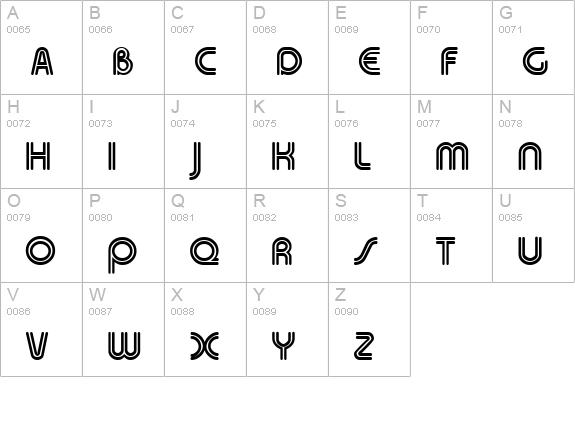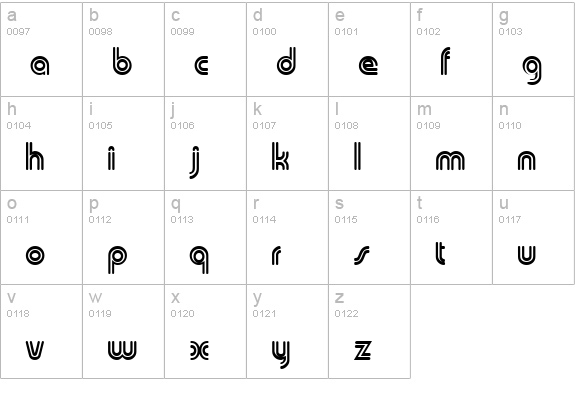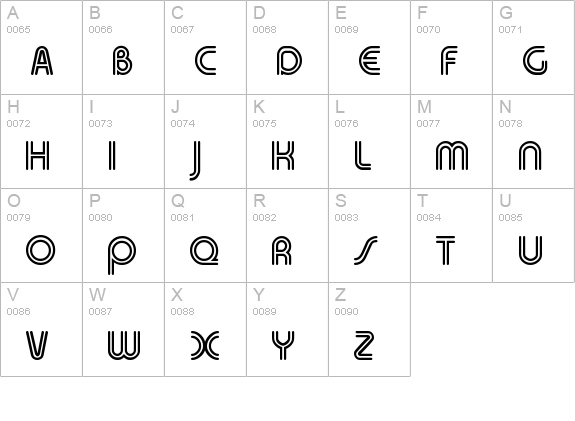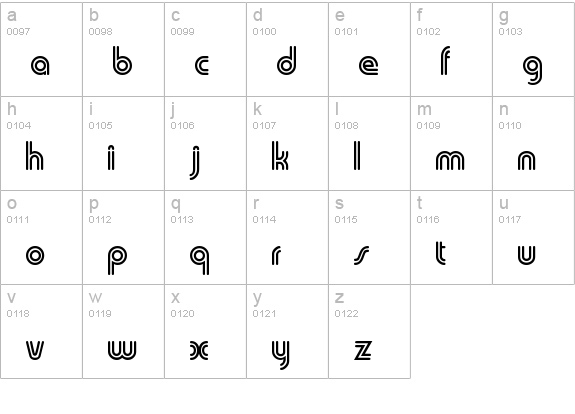
Medley Font Details
Medley font is a versatile and elegant typeface that exudes a sense of sophistication and creativity. Its unique blend of modern and classic elements makes it perfect for a wide range of design projects, from branding to editorial layouts. With its stylish curves and clean lines, Medley font adds a touch of refinement to any piece of text. What sets Medley font apart is not just its aesthetic appeal, but also its accessibility - it is available for free download at FontsMarket.com. This means that designers and creatives can easily access this beautiful font without any cost, allowing them to bring their visions to life with ease. Whether you're working on a personal project or a professional assignment, Medley font is sure to elevate your work and make a lasting impression.